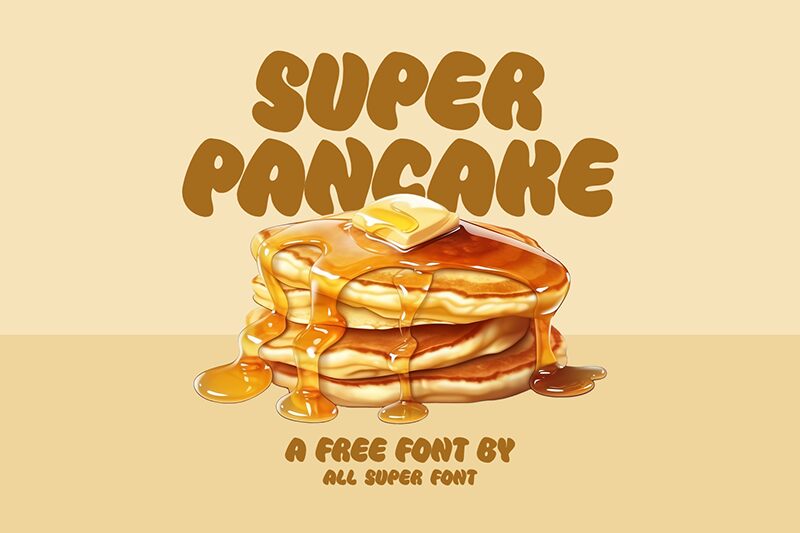
Super Pancake
Super Pancake font by fsuarez913 is a display comic font. Its bold, smooth strokes create a comic vibe with an organic feel and casual appearance. Extra rounded letter edges contribute to its unique heavy imprint. It’s a font that has an overall friendly look for cool and fun designs.
Use this free bold display font for cartoons, comics, children’s books, food packaging, stickers, posters, headlines, logos/visual identities for casual businesses and cafes/restaurants.